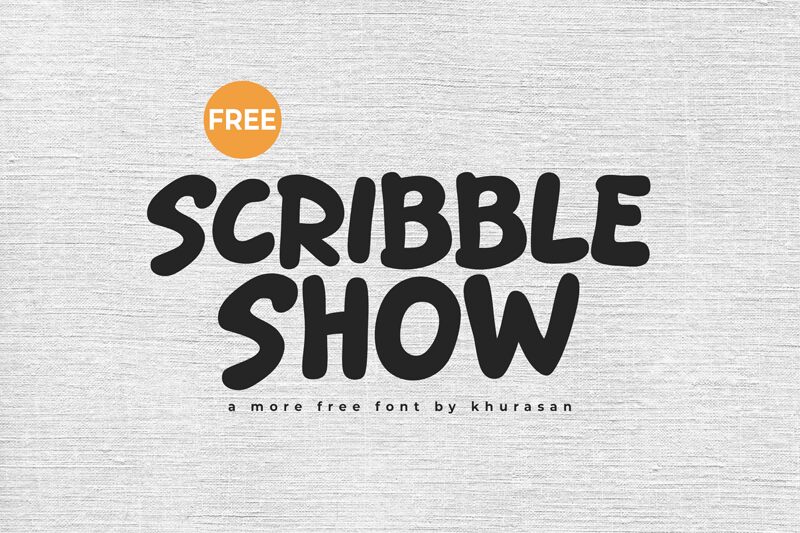
Scribble Show
Scribble Show font by Khurasan is a free cartoon display typeface that bursts with chunky, hand-drawn energy. Its rounded, blobby letters look like they’ve been sketched with a fat marker, giving text a playful wobble that still reads clearly at a glance. The tight rhythm and inky fullness make every word feel loud, friendly, and just a bit mischievous—like a doodle that jumped off the page.
Using Scribble Show, headlines instantly grab kids’ attention on book covers, birthday invitations, classroom posters, YouTube thumbnails, stickers, and comic-style titles. This free font shines when you use it big and bold, then pair it with a simple sans serif for smaller text to keep things readable.